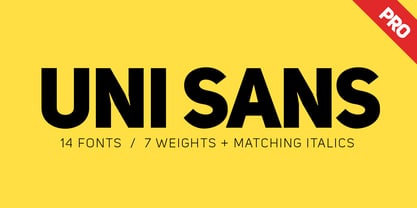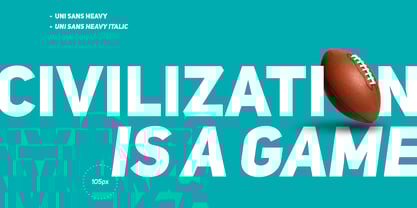
Uni Sans
Uni Sans™
by Fontfabric
Uni Sans Font Family was designed by Svetoslav Simov and published by Fontfabric. Uni Sans contains 14 styles family package options.
There is a whole new redesigned version (remake) of Uni Sans called
Uni Neue
. The Uni Sans font family includes 14 weights - seven uprights with seven italics. It is characterized by excellent legibility in both - web & print design areas, well-finished geometric designs, optimized kerning, excellent web-font performance and legibility etc. Inspired by the classic grotesque strong typefaces like DIN and Dax - Uni Sans has his own unique style in expressed perfect softened geometric forms. The font family is most suitable for headlines of all sizes, as well as for text blocks that come in both maximum and minimum variations. Uni Sans font styles are applicable for any type of graphic design in web, print, motion graphics etc and perfect for t-shirts and other items like posters, logos. PDF Specimen also available -